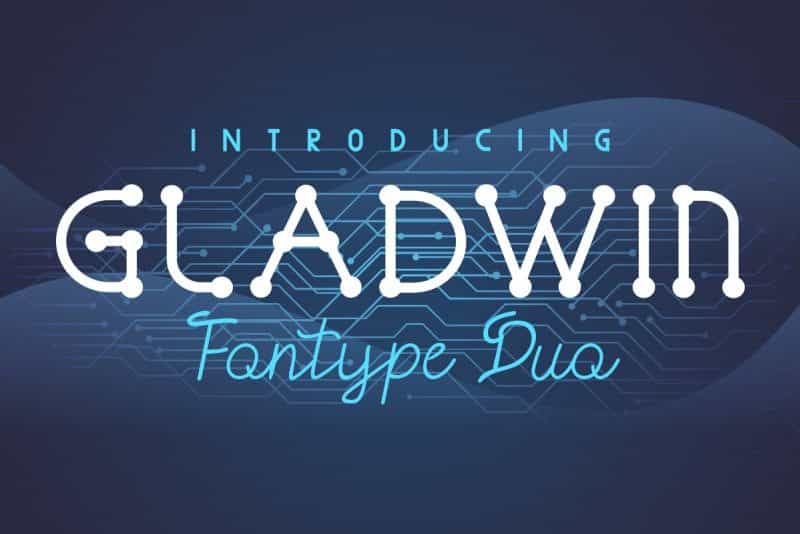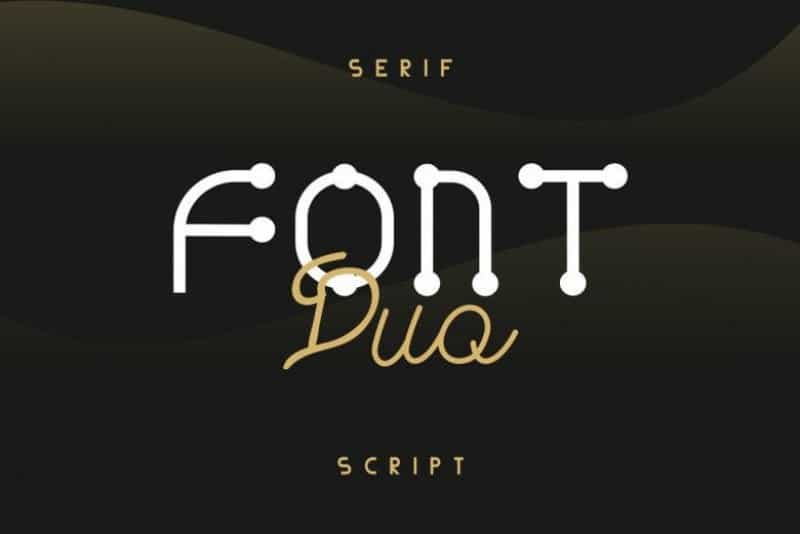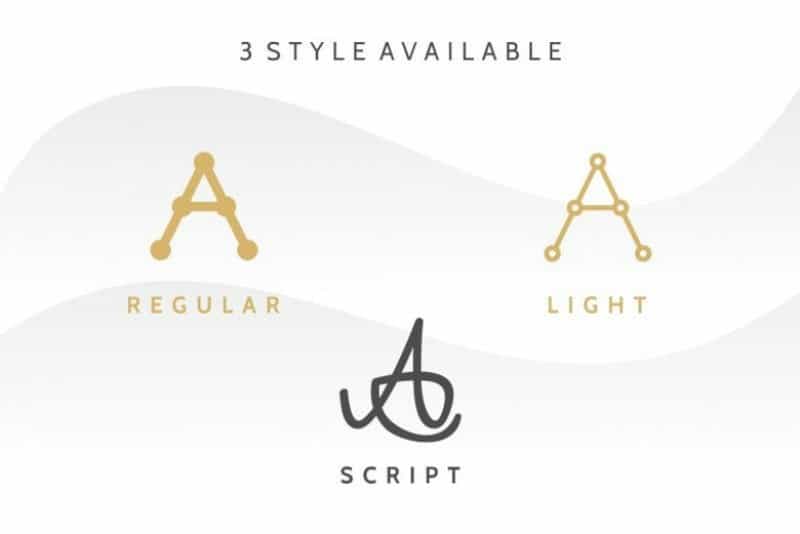
Discover Gladwin Font Duo, part of the Handwritten Serif collection—a versatile and unique font perfect for adding a personal touch to your projects. Download it for free and enjoy crafting designs with style, from invitations to social media posts. This font is available exclusively for personal use, giving you the freedom to create without limits. Unlock your creativity with Gladwin Font Duo today!
Hello Everyone!Introducing our newest font : Happy to help !It’s a duo style : Dots neon and Script handwriting. These are perfect for branding, logo, stationery, business card, signage, flyer, brochure, neon, glowing, network, connection and so on.